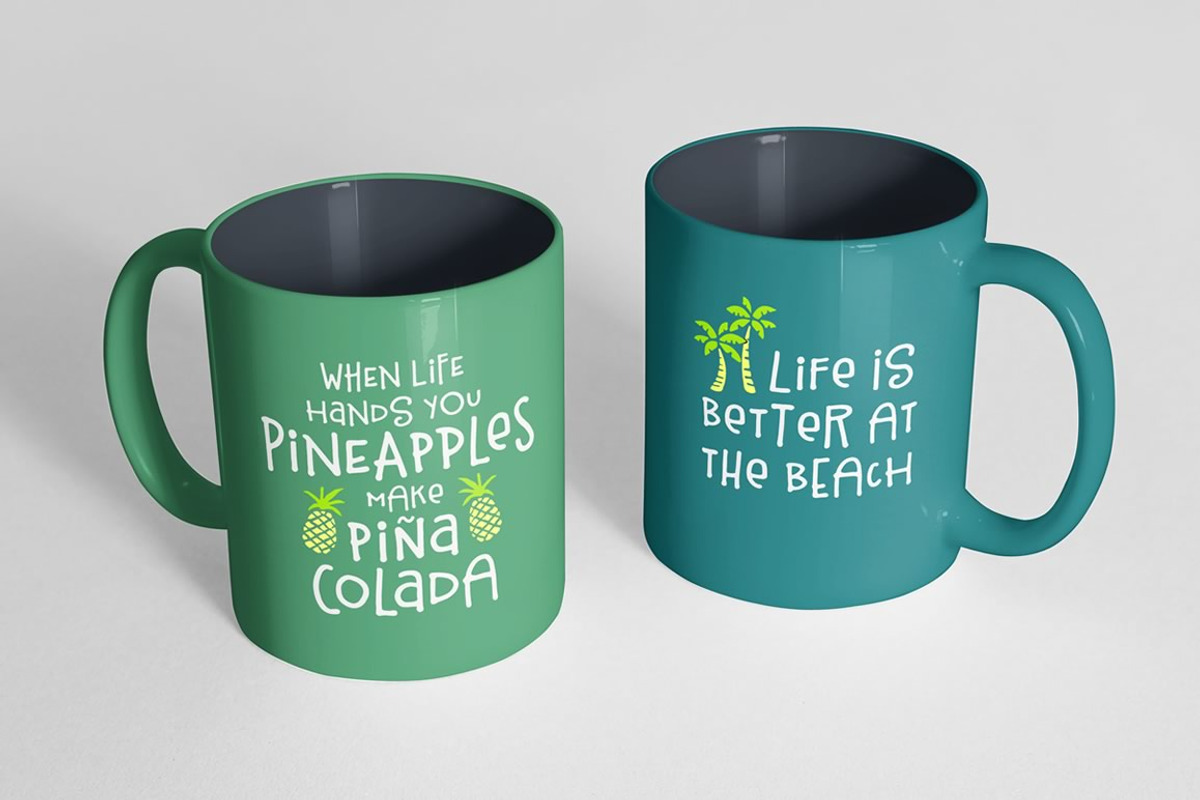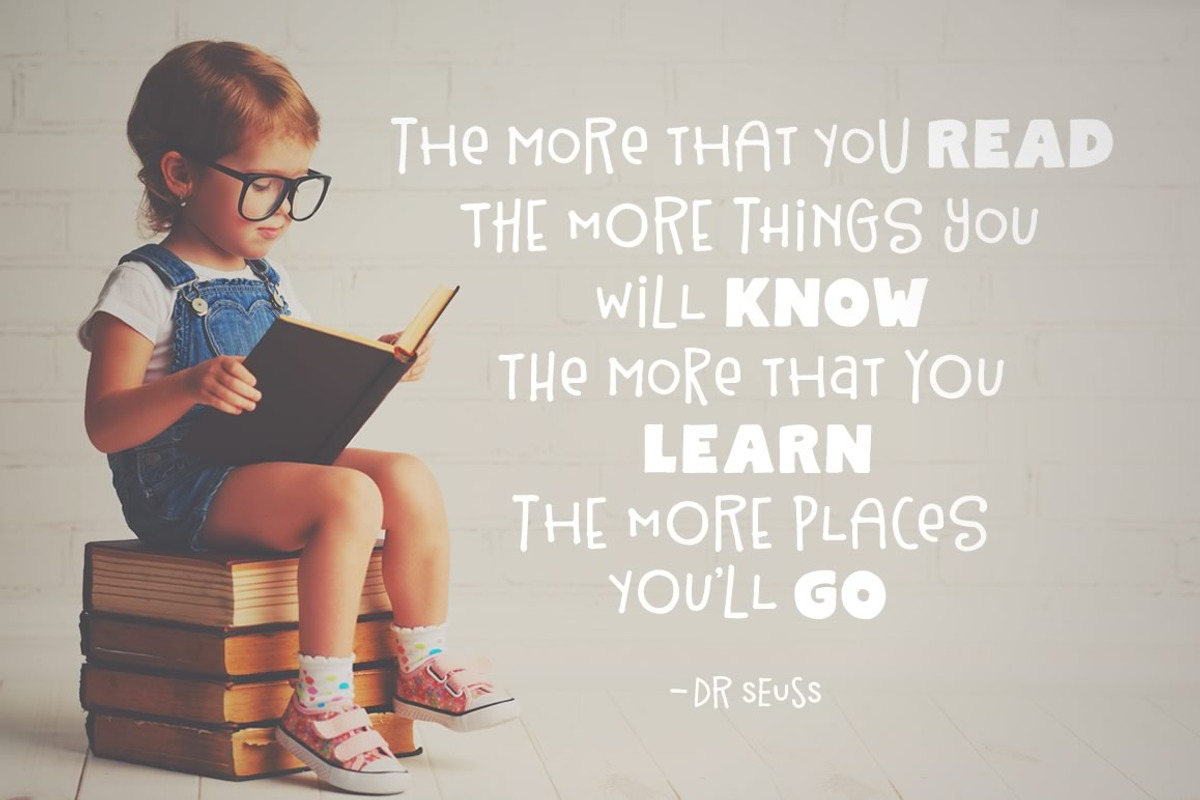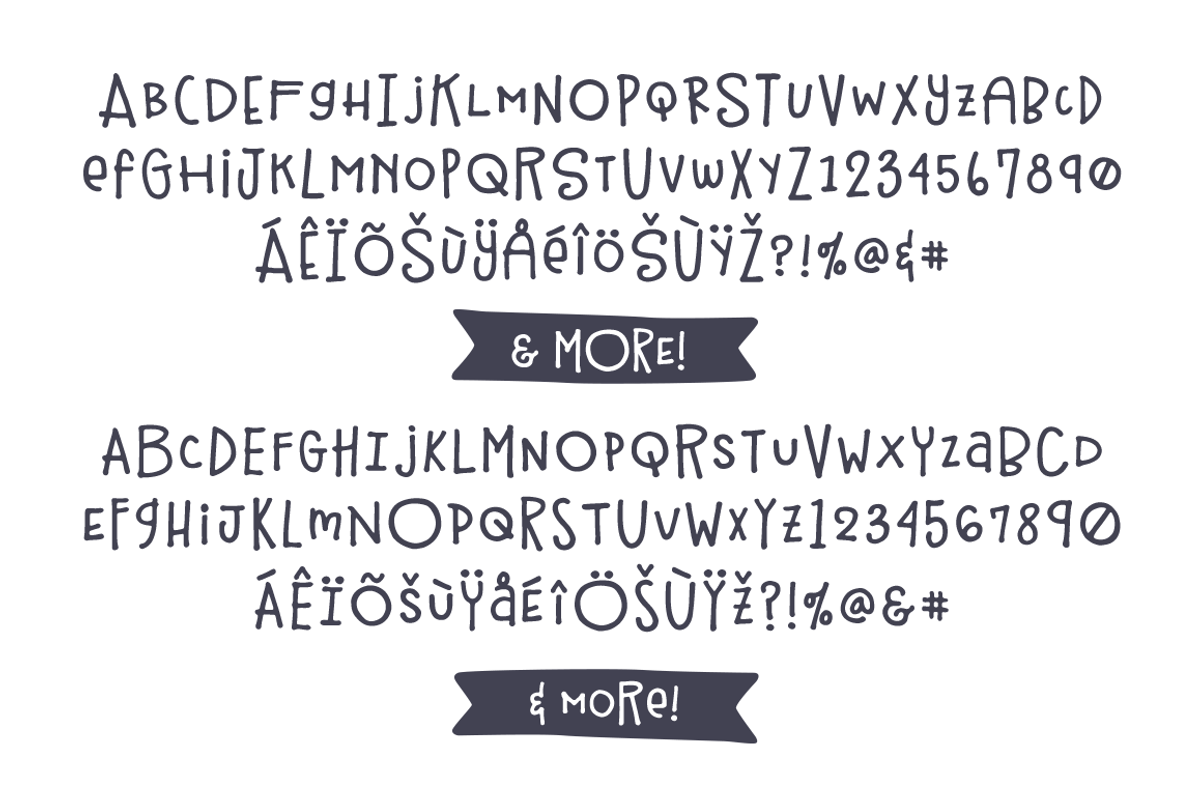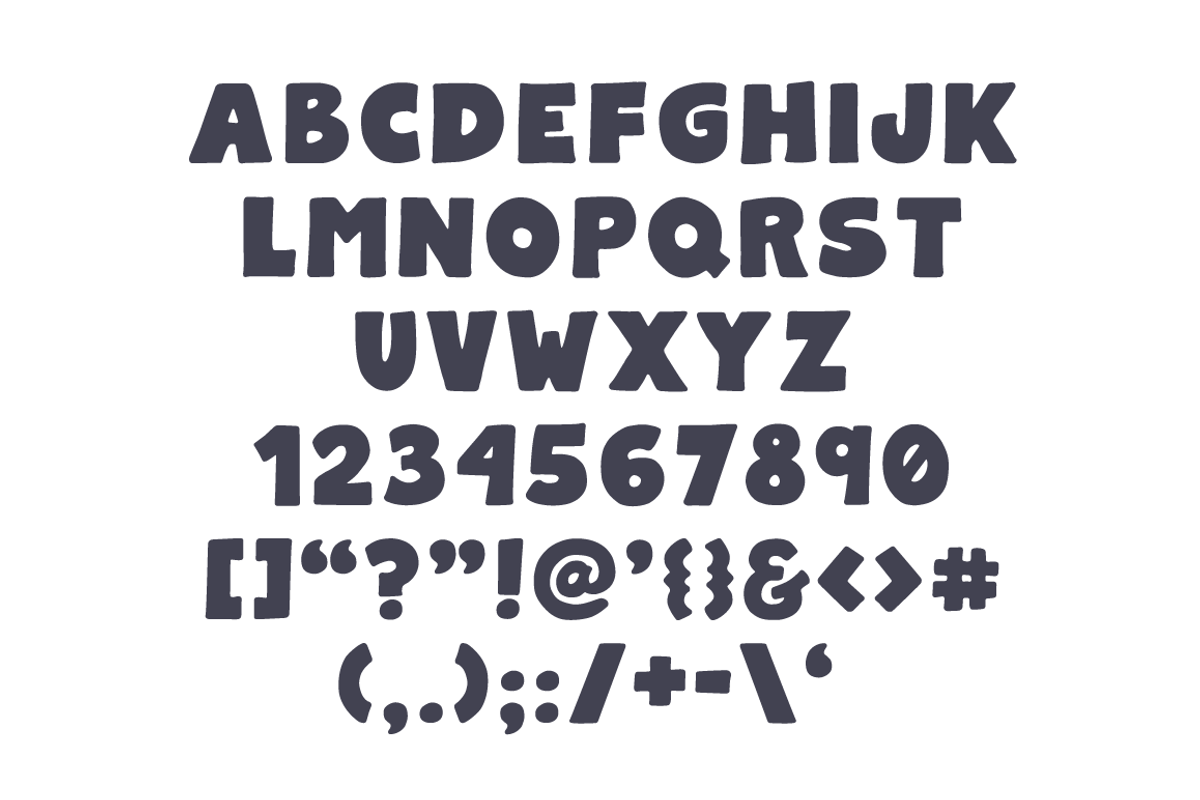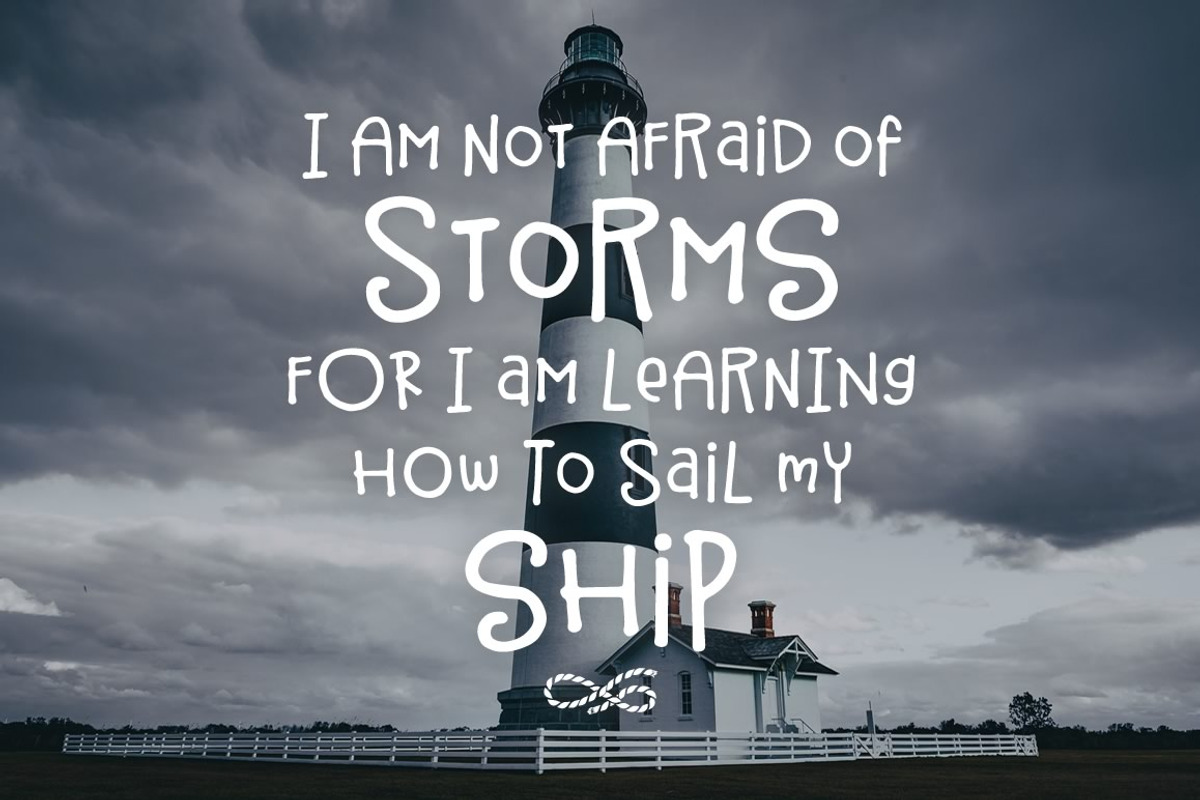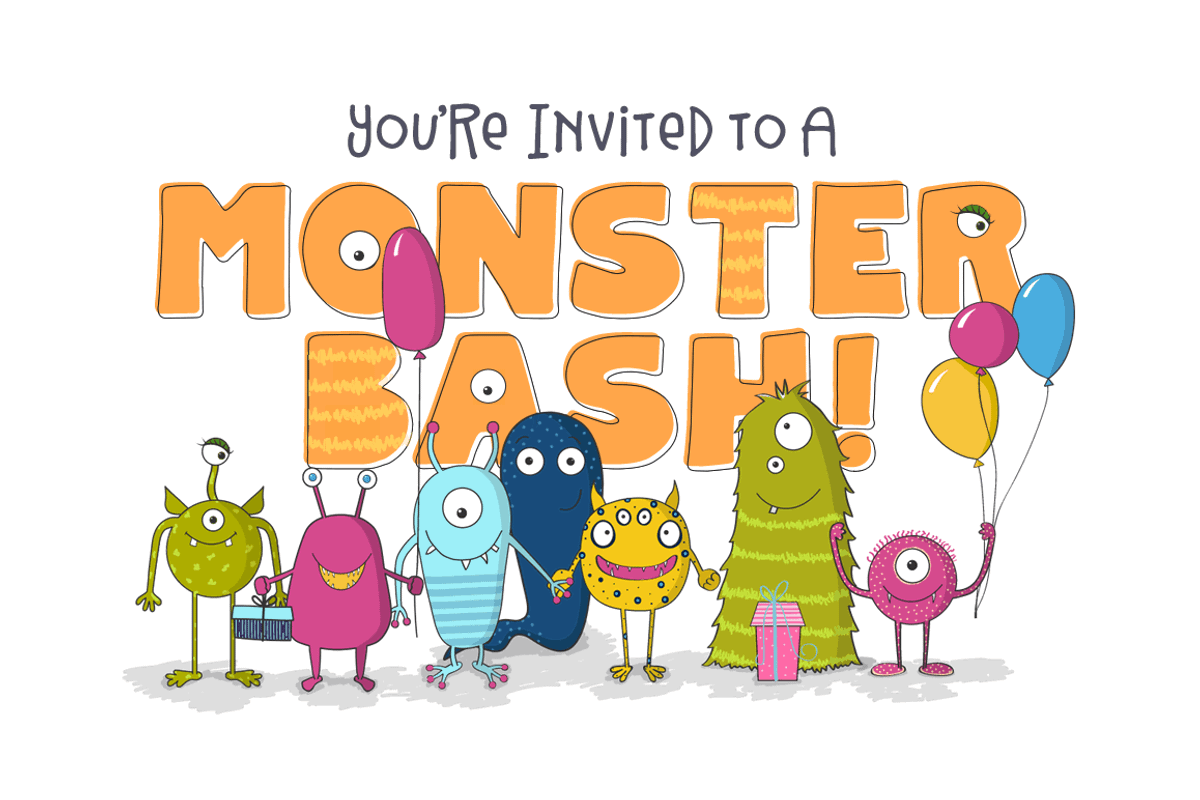
Strawberry Dreams Font Duo
Strawberry Dreams Font Duo by Denise Chandler is a font selected for branding, posters, packaging, typography.
- Together with the alternates font, Strawberry Dreams gives you 4 variations of each letter creating several different options to choose from
Strawberry Dreams Font Duo by Denise Chandler fits naturally into Branding, posters, packaging, typography.